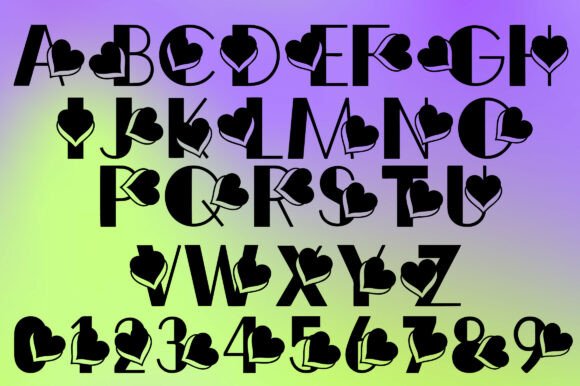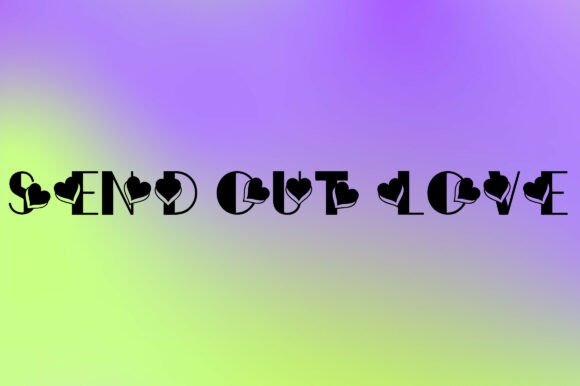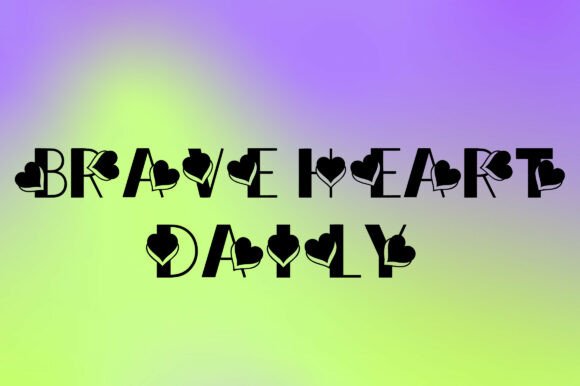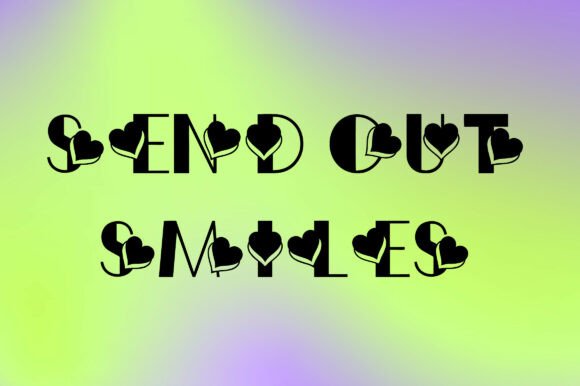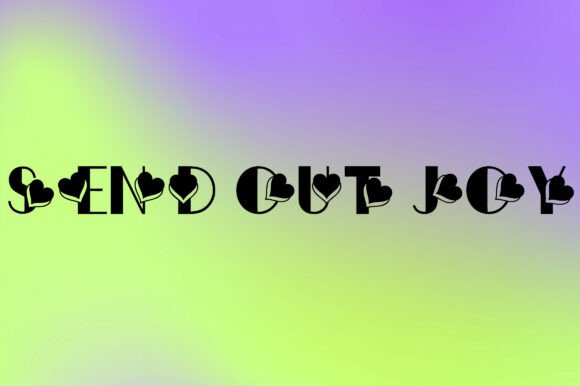
The Sweetest Font You’ll Fall in Love With: Caca Font
A Delightful Decorative Font
CACA Decorative Heart Style Fonts is a wonderful and delightful typeface inspired by sweet heart elements and playful artistic charm. Its lovely decorative style adds warmth, joy, and personality to any creative project, making it perfect for logos, branding, posters, invitations, packaging, Valentine-themed designs, social media graphics, and more.
What I Love About Caca Font ✨
- Unique and playful heart-inspired design ❤️
- Perfect for Valentine’s Day, love-themed, or spring designs 🌸
- Features uppercase English letters A–Z and numbers 0–9 📝
- Adds a fun and stylish touch to any creative project 🎨
- Endless opportunities to express your creativity with love and imagination 🌈
Honest Review: A Few Quirks to Consider 🤔
- ⚠️ Limited character set (only uppercase English letters and numbers)
- ⚠️ May not be suitable for body text or long-form content due to its decorative nature
The Designer Inspiration Behind Caca Font
Caca Font was designed with love and care by a talented type designer who wanted to create a font that would spread joy and warmth. Inspired by the sweetness of Valentine’s Day and the playfulness of heart-themed designs, Caca Font is the perfect addition to any creative project.
| Font Name | Caca Font |
| Author | MOMAT THIRTYONE |
| Is Caca Font suitable for body text or long-form content? | No, Caca Font is a decorative font and may not be suitable for body text or long-form content due to its playful and ornamental nature. |